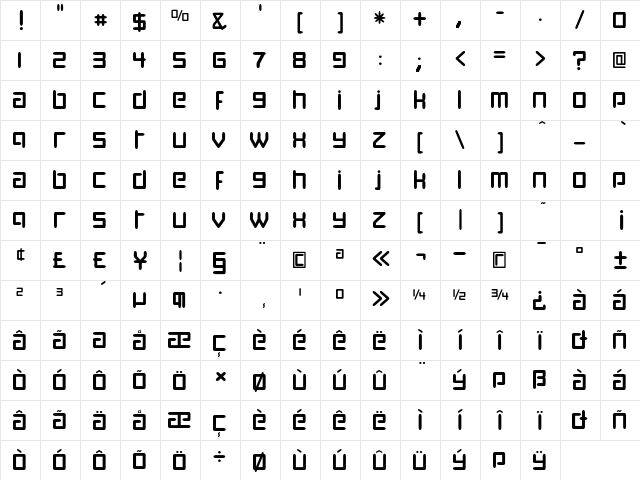
Digitalis Regular
Design Context for Digitalis Typeface
Digitalis has a distinctly futuristic character, with geometric precision and clean angles that feel at home in technology, gaming, and sci-fi contexts.
Pro Tip: Use Digitalis in combination with a neutral sans for body text. Let it define the brand voice in headlines while keeping reading comfortable elsewhere.